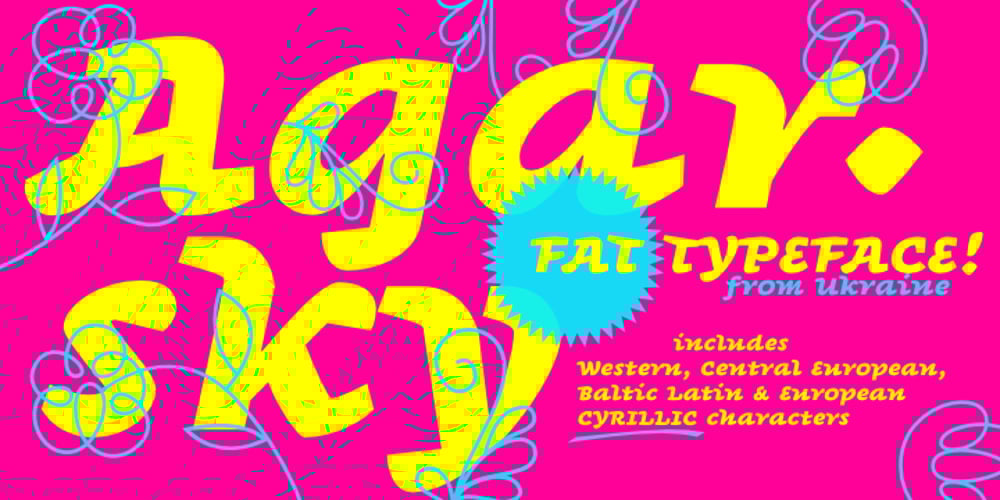
Agarsky
Agarsky font
Agarsky Font Family was designed by Andrij Shevchenko and published by AndrijType. Agarsky contains 1 styles and family package options. This fat and vivid typeface with broken lines has a great ability for uppercase setting. It was named after the Agara name our small river Berda had when ancient Greeks sailed it. Includes Western, Central European, Baltic Latin and European Cyrillic characters.